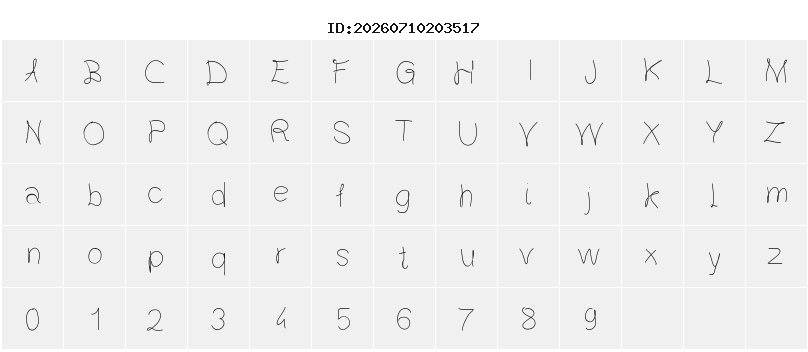
About Gaelle203Font.ttf
Gaelle203Font.ttf is a modern, elegant sans-serif font designed for ultimate readability and visual harmony. Perfect for branding, headlines, web design, and print materials.